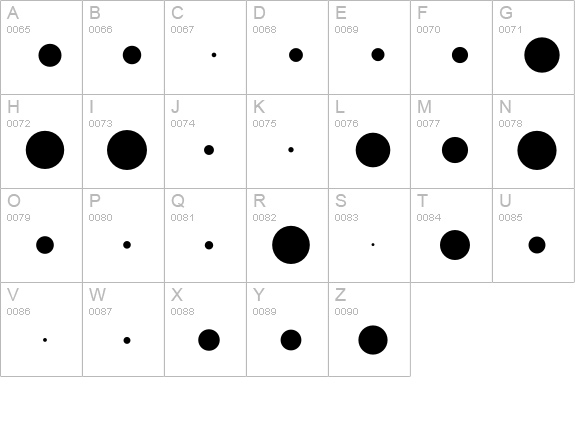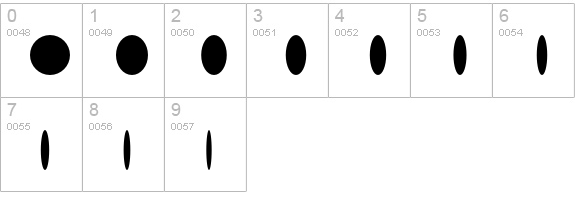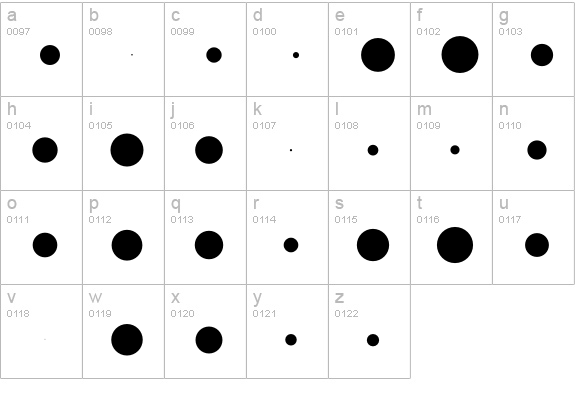
Freeform-Three Font Details
Introducing Freeform-Three font, a versatile and modern typeface that offers a perfect blend of creativity and functionality. This font exudes a sense of freedom and individuality, making it ideal for a wide range of design projects. With its sleek lines and unique curves, Freeform-Three font adds a touch of elegance and sophistication to any layout. What sets Freeform-Three font apart is its free-spirited nature and ability to adapt to various design styles. Whether you're working on a branding project, editorial design, or digital artwork, this font will effortlessly elevate your work to the next level. The best part about Freeform-Three font is that it is freely available to download at FontsMarket.com. So, you can easily incorporate this stunning font into your projects without any hassle. Don't miss out on the opportunity to add a touch of creativity and flair to your designs with Freeform-Three font. Download it today and let your imagination run wild!